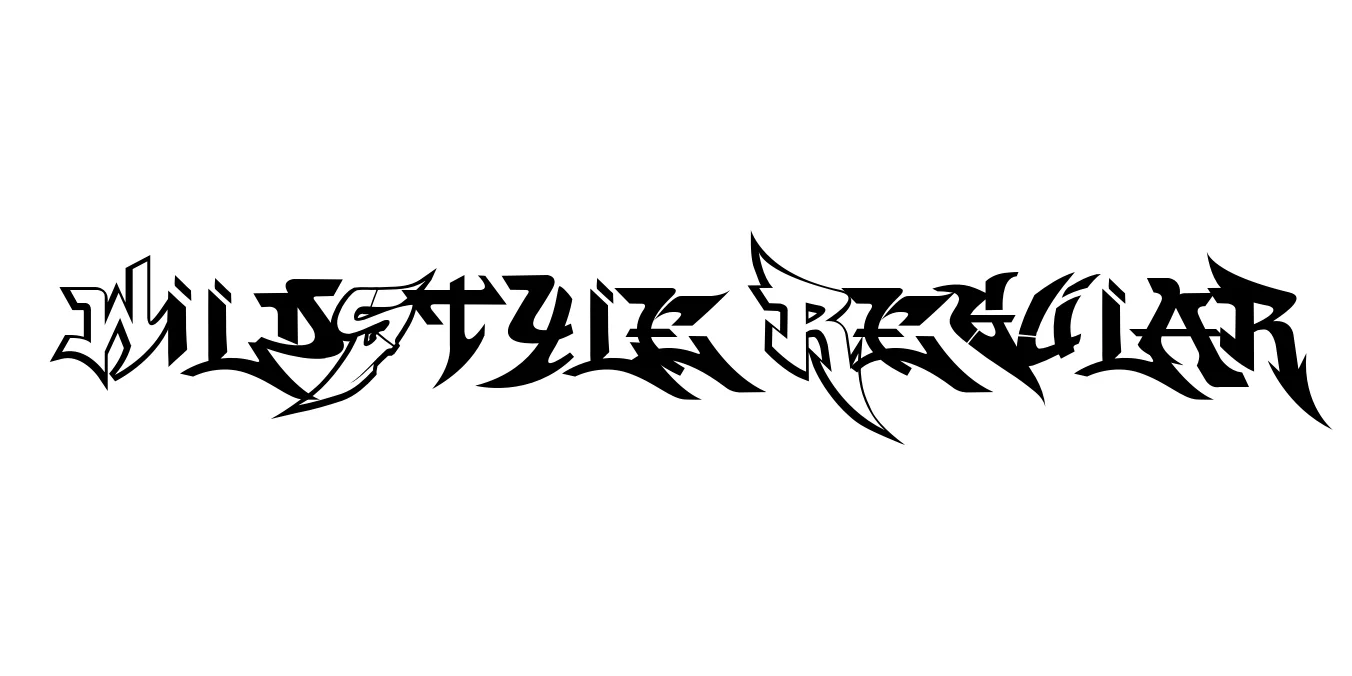
WildStyle Regular
Designed by Matthew Napolitano (Rane5)
| Category | Graffiti / Display |
| Designer | Matthew Napolitano (Rane5) |
WildStyle Regular is a quintessential example of graffiti-inspired typography, capturing the raw energy and intricate layers of urban street art. Developed by Matthew Napolitano, better known as Rane5 of Highground Industries, this typeface mirrors the "Wildstyle" aesthetic—a complex form of graffiti where letters are intertwined, sharpened, and stylized to the point of being nearly abstract to the untrained eye.
Originally released in the late 1990s as part of the GraffWriters series, the font remains a staple for designers looking to inject authentic hip-hop culture into their projects. The WildStyle Regular weight provides a solid, bold presence that maintains legibility while preserving the aggressive, arrow-ended flourishes and interlocking structures characteristic of classic New York subway art.
WildStyle Regular Best Uses
Ideal for streetwear brands, t-shirts, and hoodies looking for an authentic urban vibe.
Perfect for hip-hop album covers, concert posters, and underground event flyers.
Excellent for gaming overlays and YouTube thumbnails focusing on urban culture or street sports.